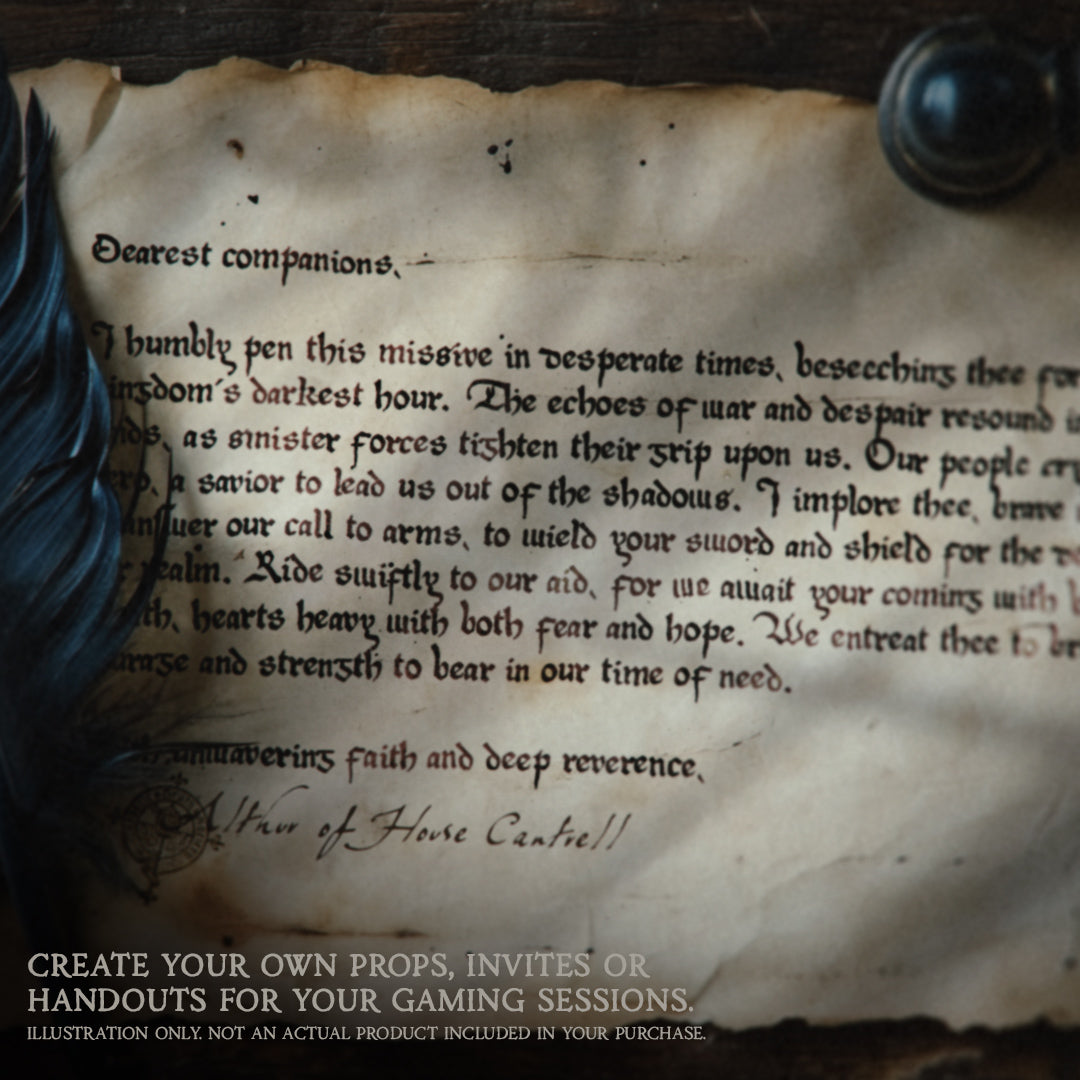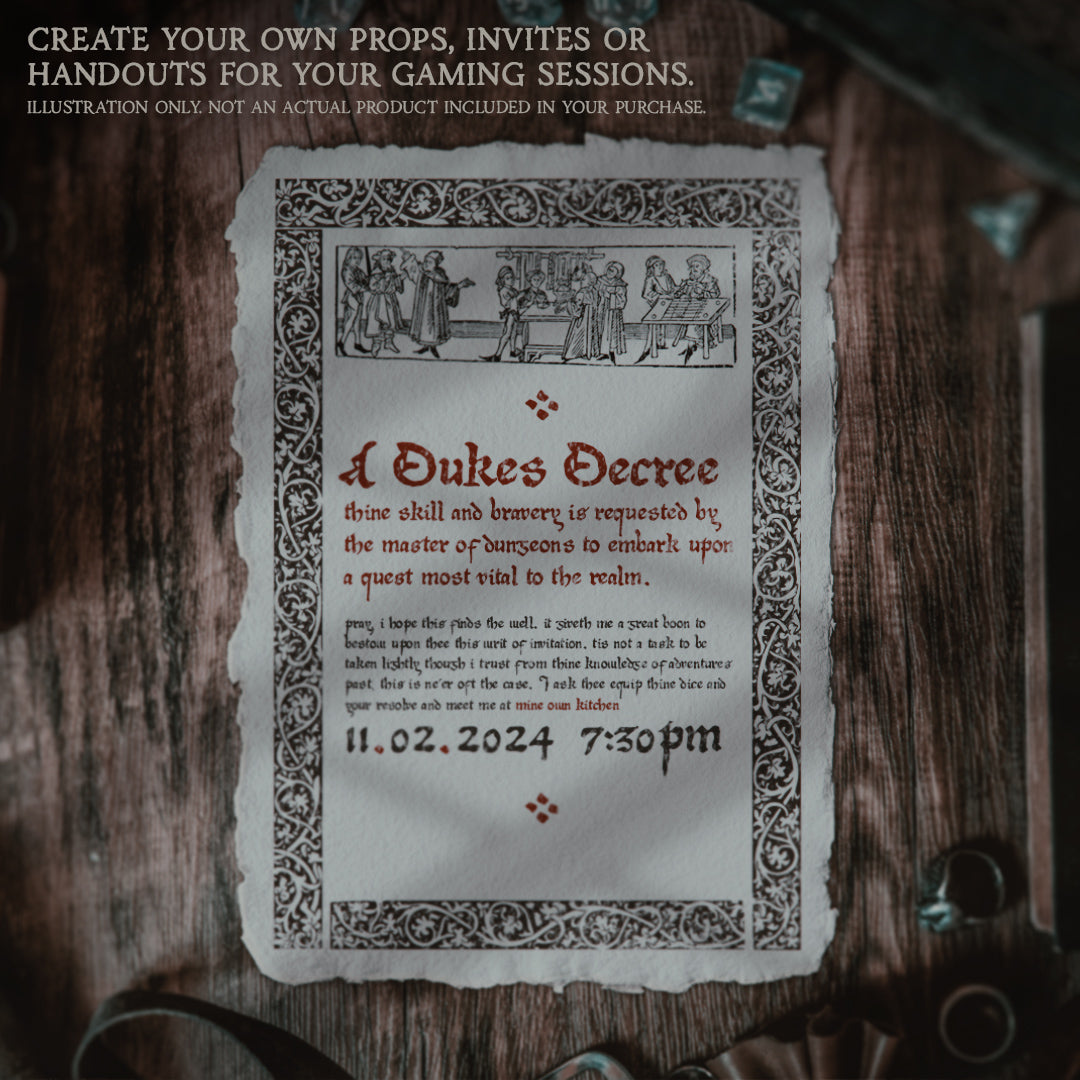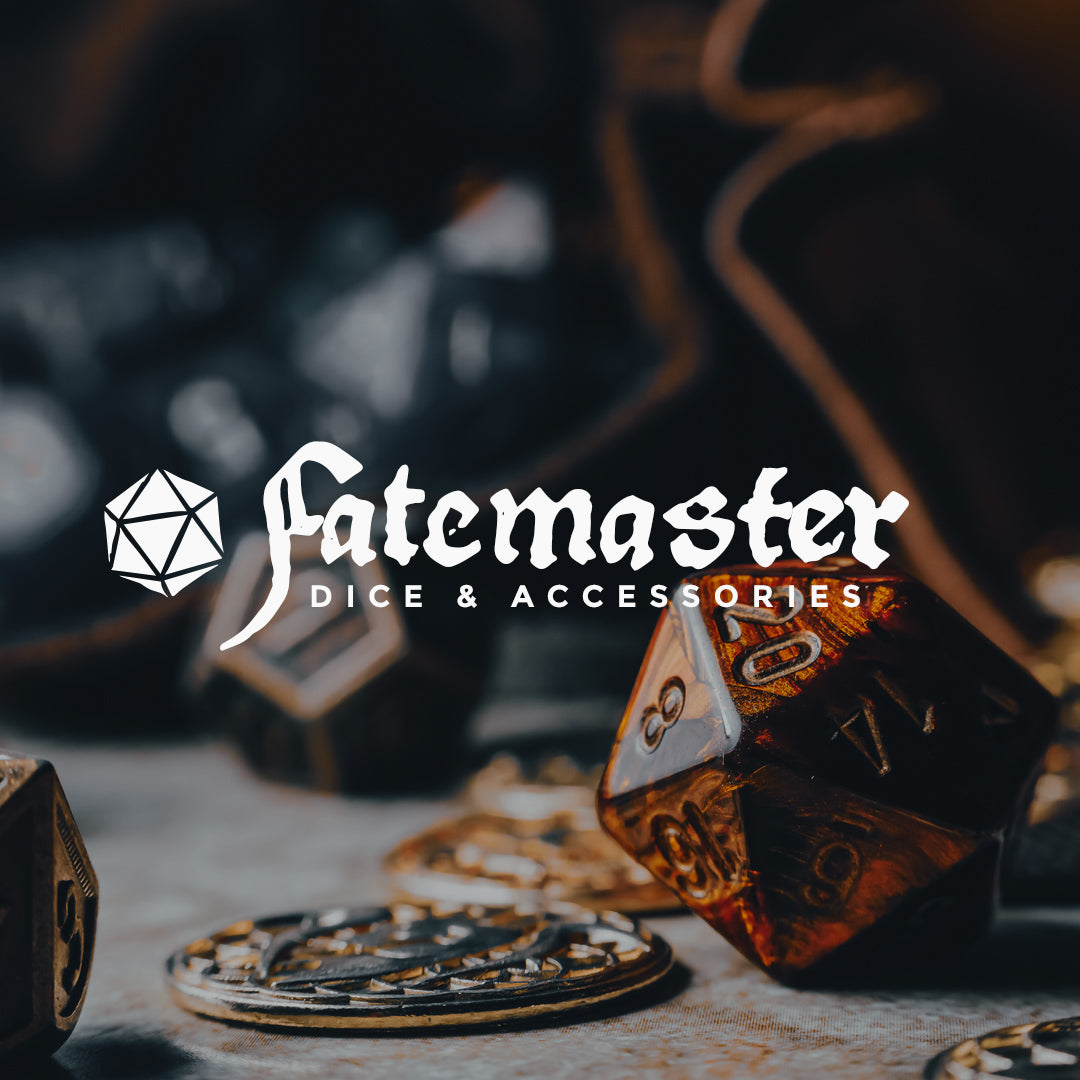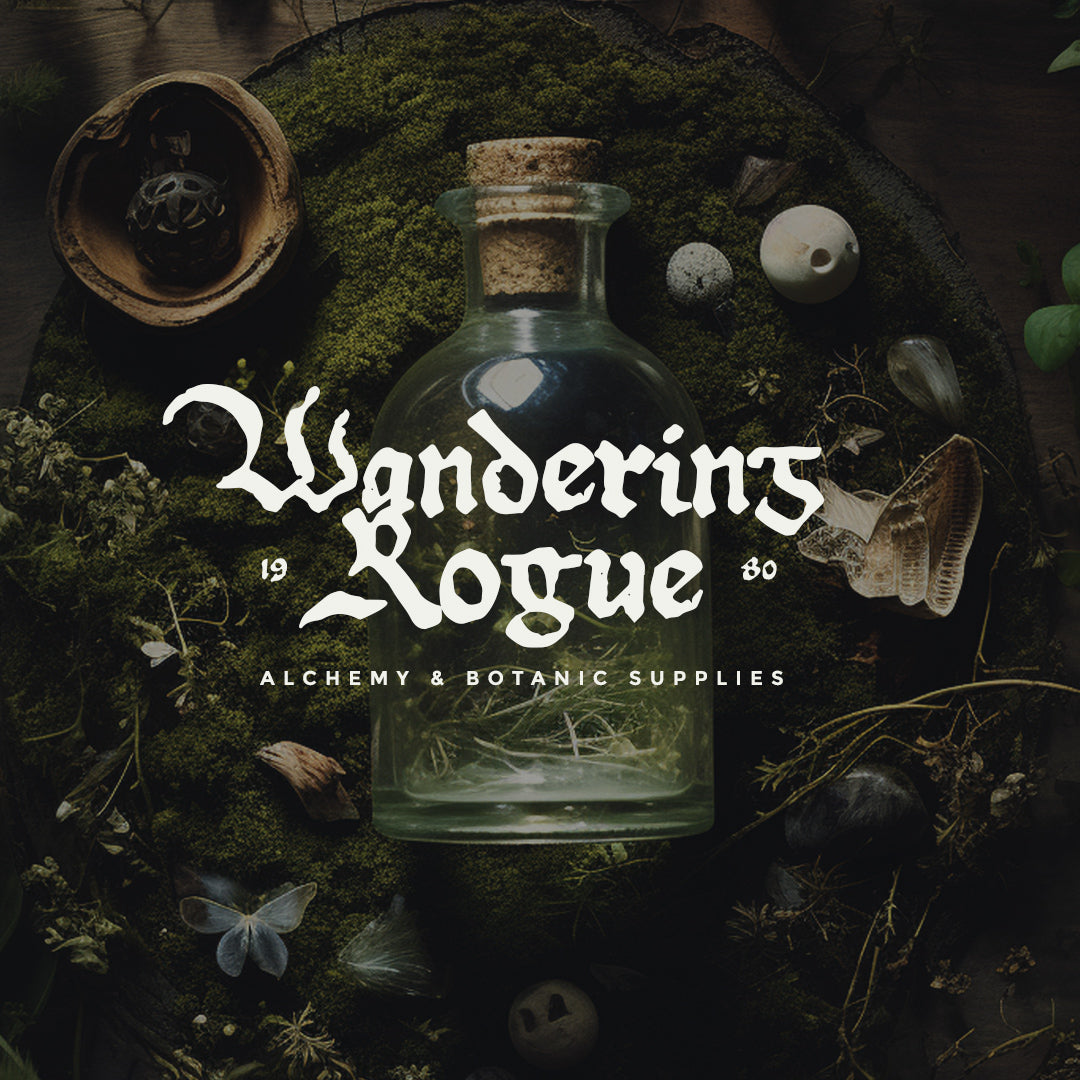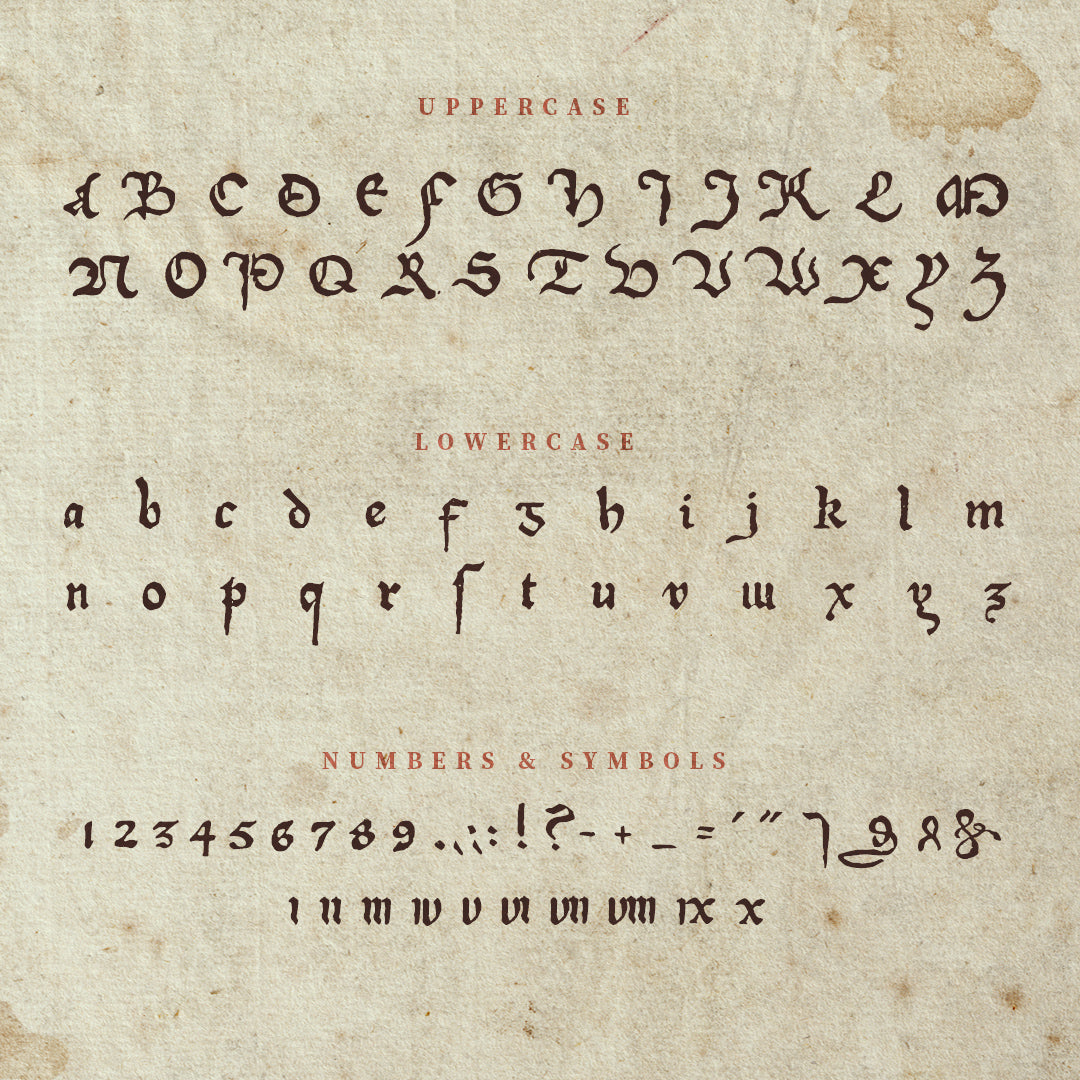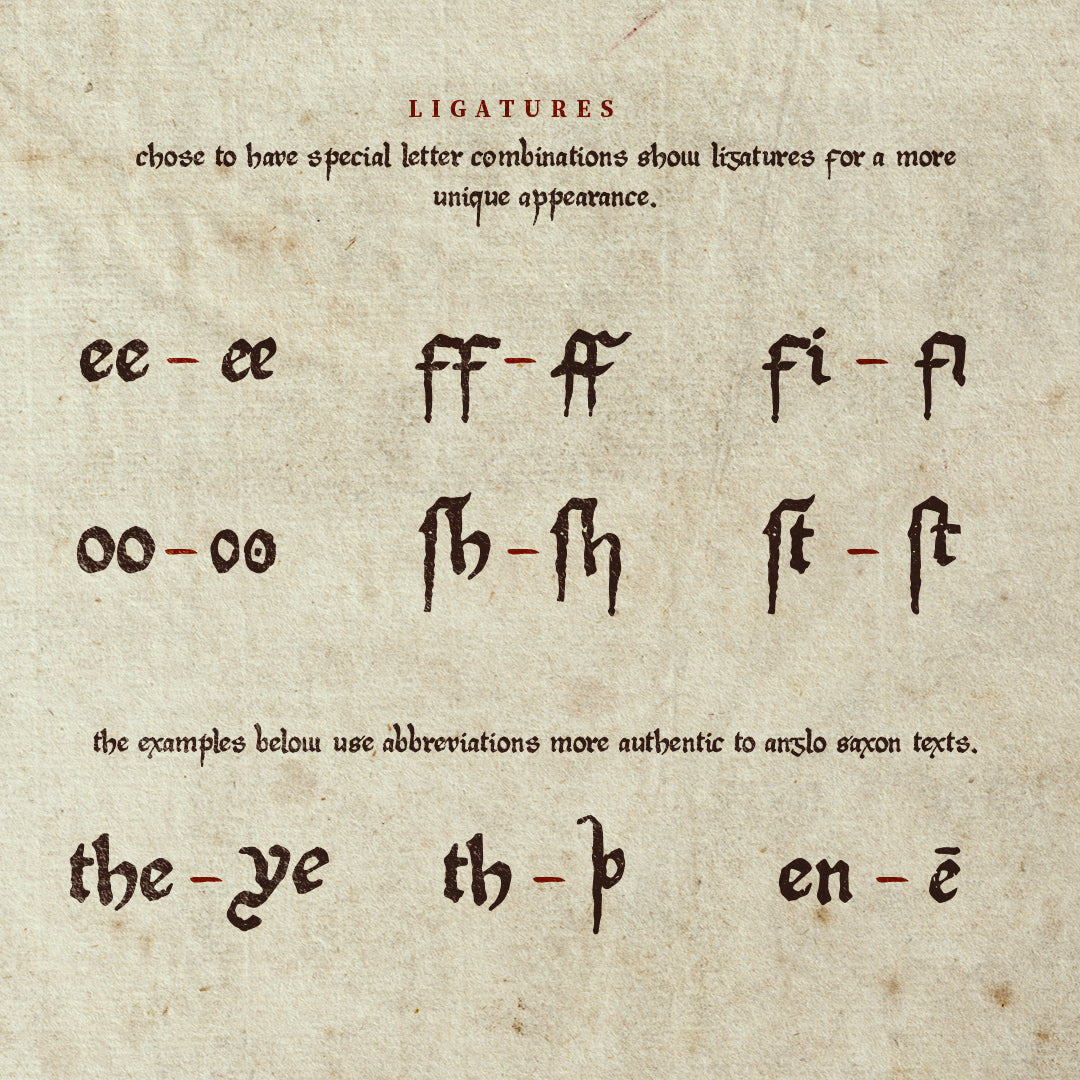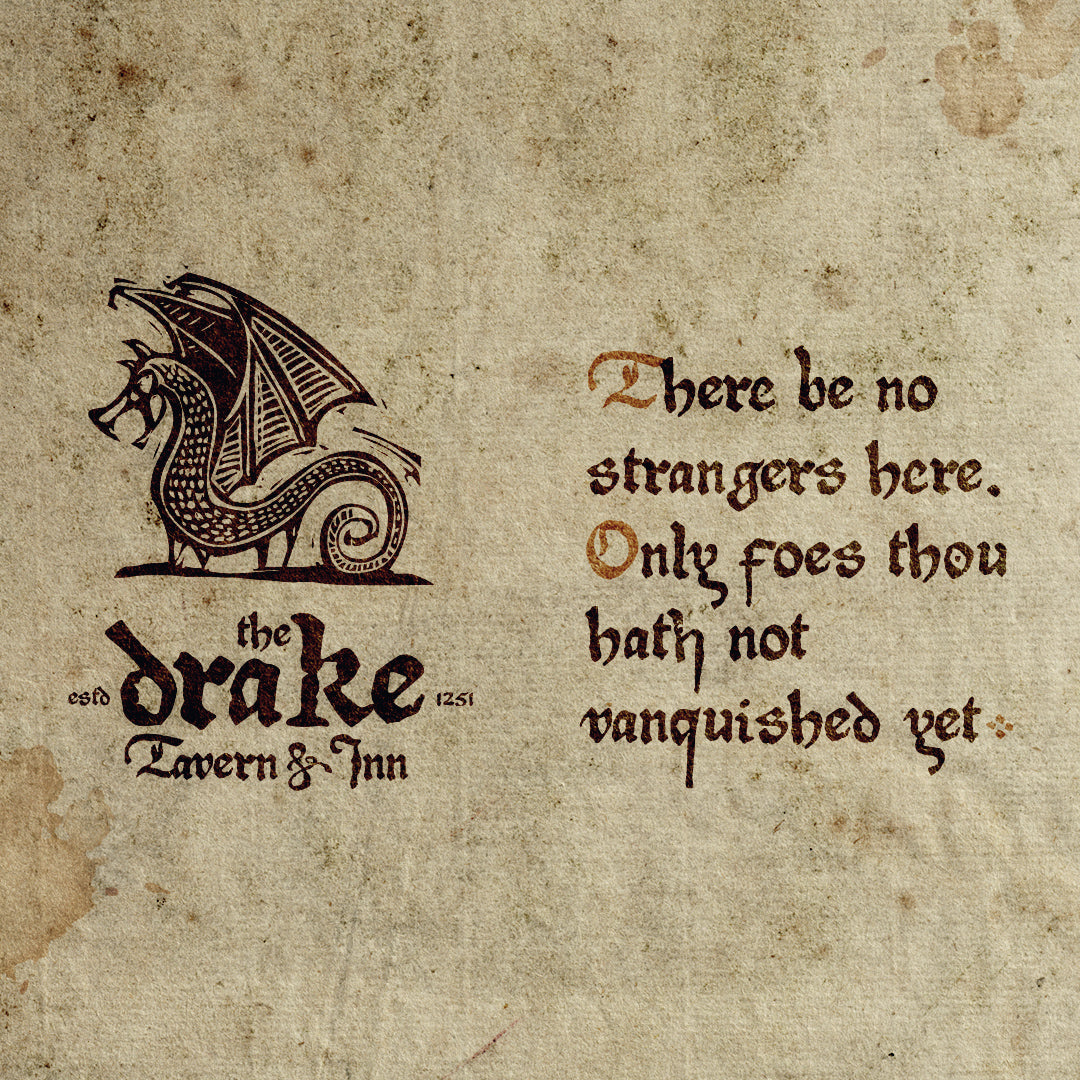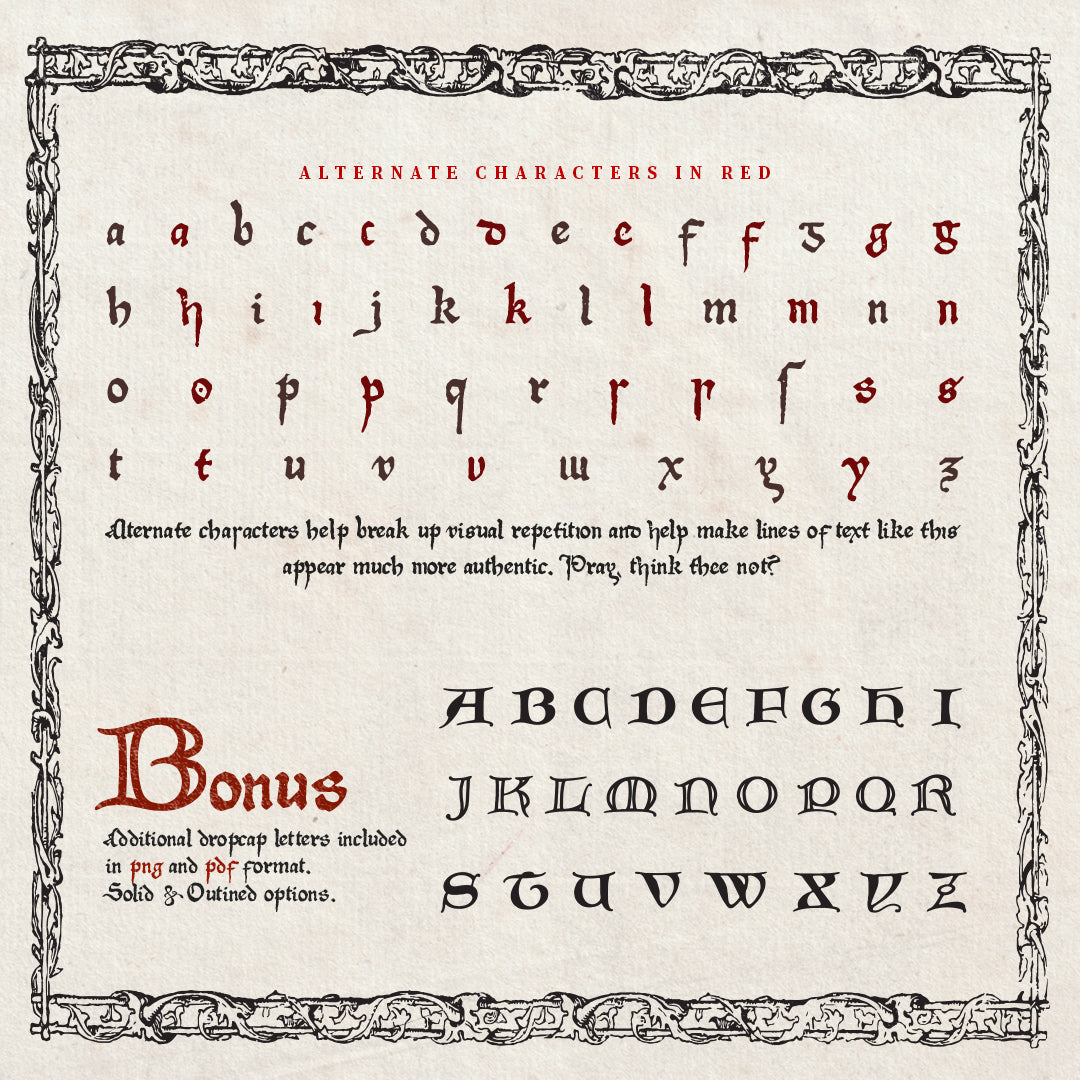
Medi Aevi Font
Medi Aevi is a medieval script font, inspired by the gothic, hand-written texts of the middle ages. For dungeon masters, the font is ideal for the creation of authentic looking handouts and props, such as old manuscripts, ransom and warning notes, invitations, royal decrees and more.
Medi Aevi is also suited to projects outside the realm (aye, that's a pun and its staying) of Dungeons & Dragons, table top roleplaying and larping; such as wedding invites and stationery, branding, apparel design, or anywhere a touch of medieval age is needed.
The font comes in both upper and lower case, with a range of lowercase alternate characters. To accompany the main font, an additional drop cap font is included (two variants: Solid & Outlined). These Drop cap characters are also included as individual graphics, supplied in .png and .pdf formats.